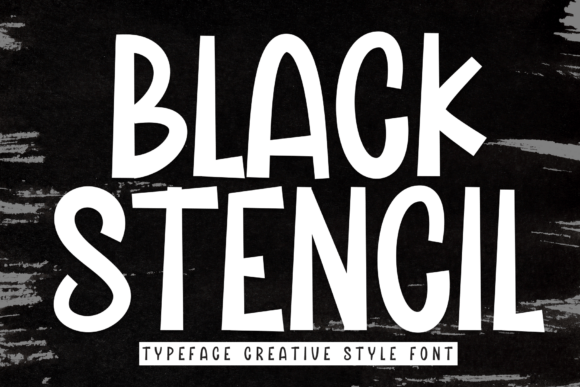
Discover the Charm of Black Stencil Font: A Sweet and Friendly Handwritten Font
Are you a designer or crafter looking for a font that can add a touch of personality to your projects? Look no further than the Black Stencil Font. This sweet and friendly handwritten font is perfect for a wide range of designs, from DIY crafts to professional branding materials. In this article, we’ll explore the unique features of Black Stencil Font and how it can elevate your creative projects.
The Unique Style of Black Stencil Font
Black Stencil Font boasts a natural and unique style that sets it apart from other fonts. Its handwritten charm makes it incredibly fitting for a large pool of designs, from rustic and vintage to modern and playful. The font’s distinctive look is perfect for adding a personal touch to your projects, making them stand out from the crowd.
One of the key benefits of Black Stencil Font is its versatility. Its neutral tone and adaptable style make it suitable for a wide range of applications, including:
- DIY crafts and scrapbooking
- Digital marketing materials and social media graphics
- Stationery and greeting cards
The Only Limit is Your Imagination!
The flexibility of Black Stencil Font is truly limitless. With this font, you can create a wide range of designs that reflect your personal style and creativity. Whether you’re a seasoned designer or a crafty hobbyist, Black Stencil Font is the perfect tool to help you bring your ideas to life.
Imagine using Black Stencil Font to create:
- A rustic wooden sign with a distressed finish
- A playful greeting card with colorful illustrations
- A bold and eye-catching poster for a music festival
- A beautiful handmade journal with decorative lettering
Tips for Using Black Stencil Font Effectively
To get the most out of Black Stencil Font, here are a few tips to keep in mind:
- Pair Black Stencil Font with other fonts to create a unique and visually appealing combination
- Use the font to create custom illustrations and graphics, such as icons and logos
- Don’t be afraid to get creative and try out new and unusual design ideas